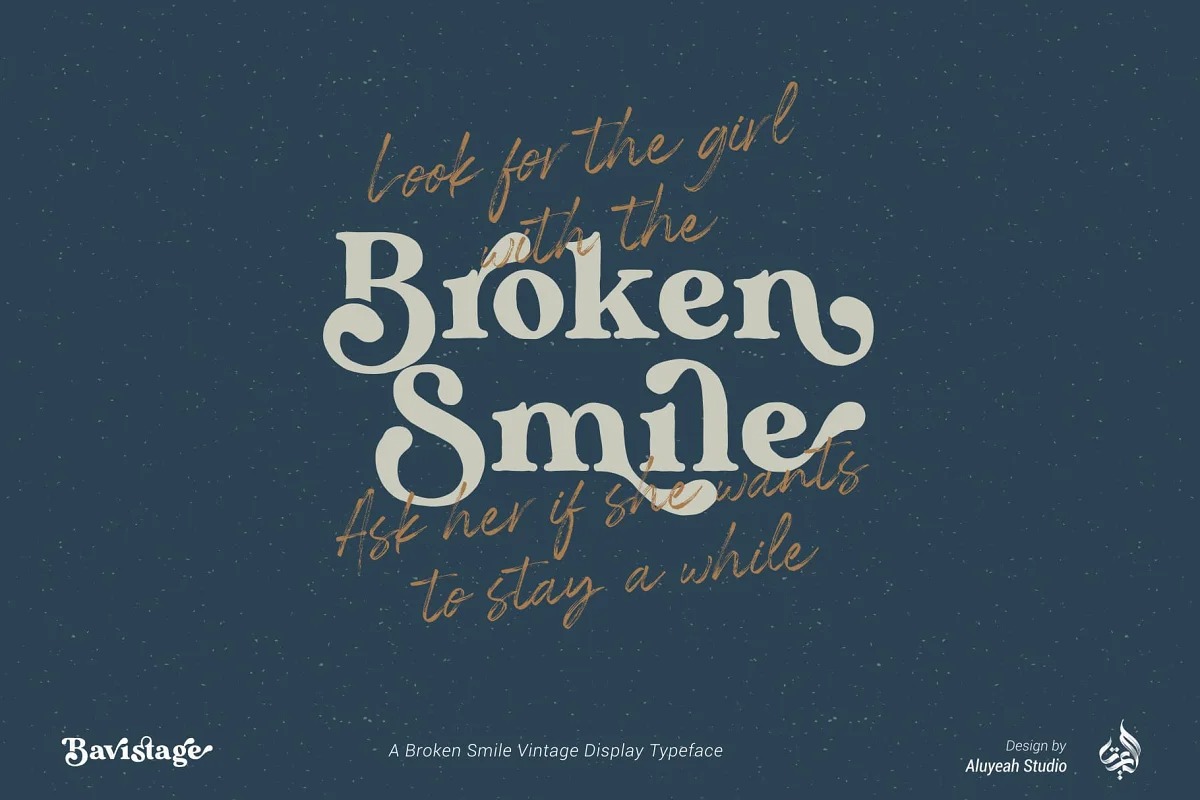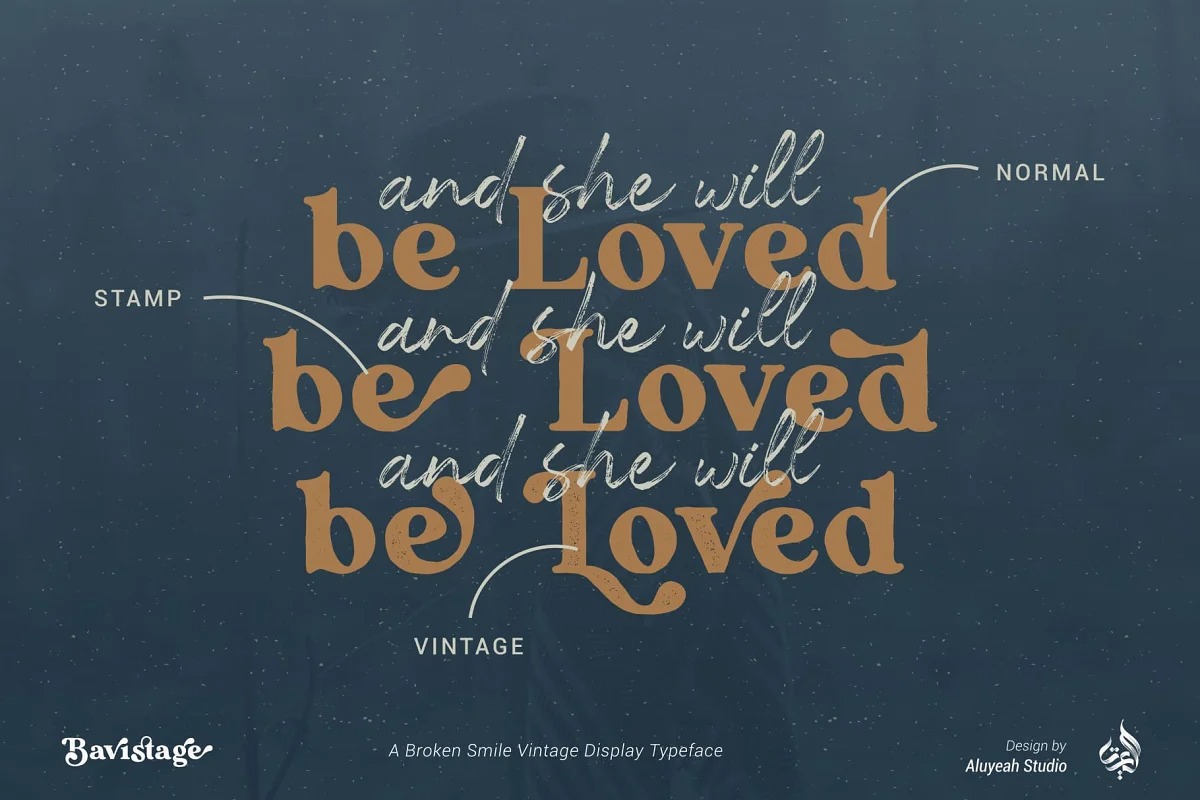
Bavistage Font
Bavistage Serif Font
This is display bold serif typeface from designer Aluyeah Studio. The shape is classic and unique style. Inspired by the vintage vibe of a girl’s broken smile. It gives you past memories, disappointments and happiness at the same time.
Coming with 3 styles, and each style has stunning 130+ alternatives, 30+ ligatures and it’s super easy to use.
Very suitable for magazine, headline, website, ads, product package and all type of design project you have.